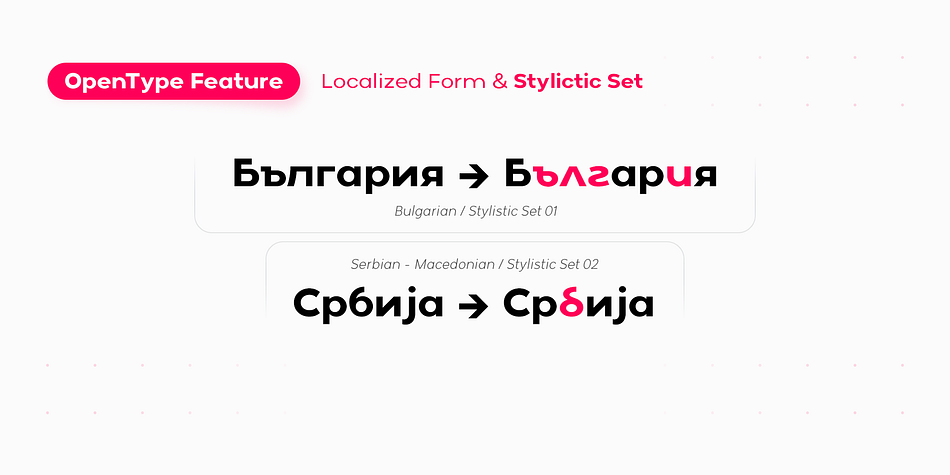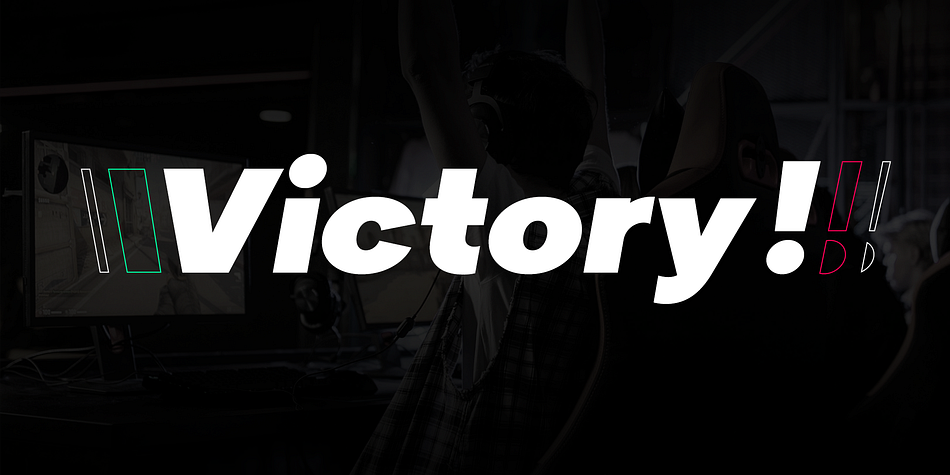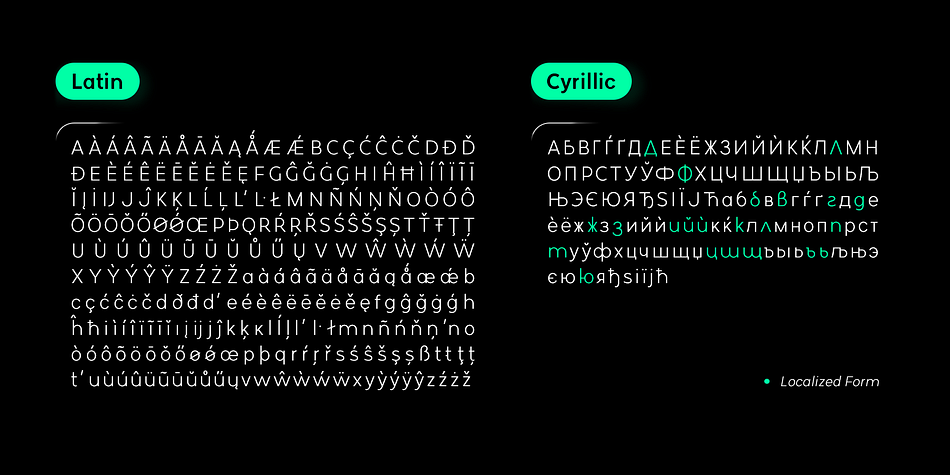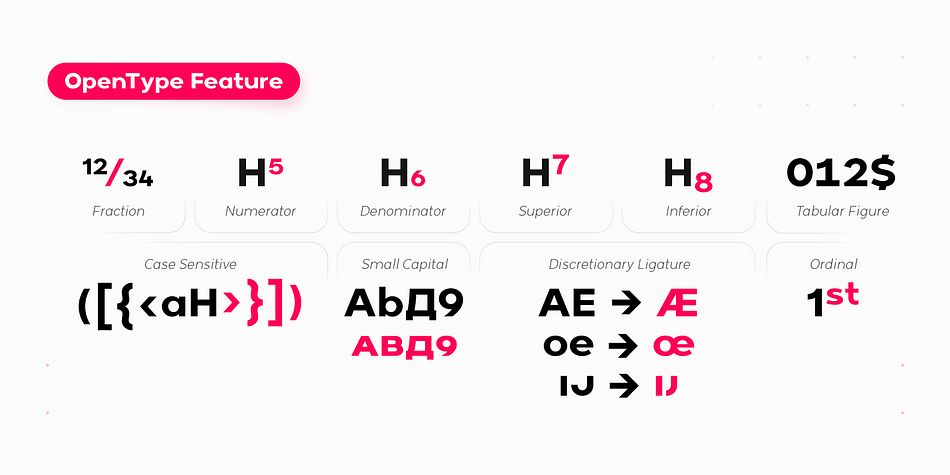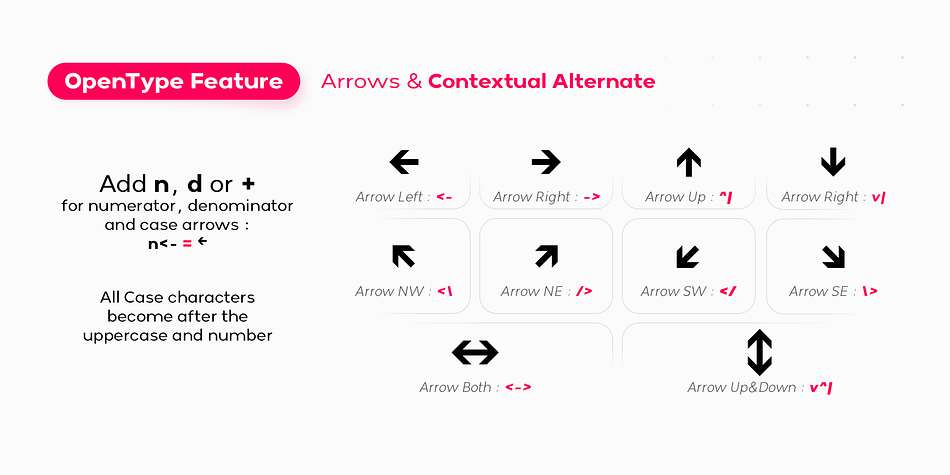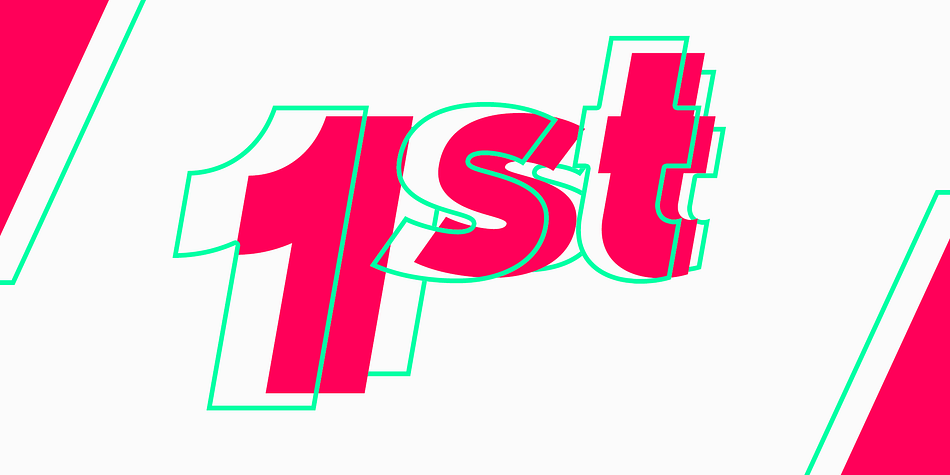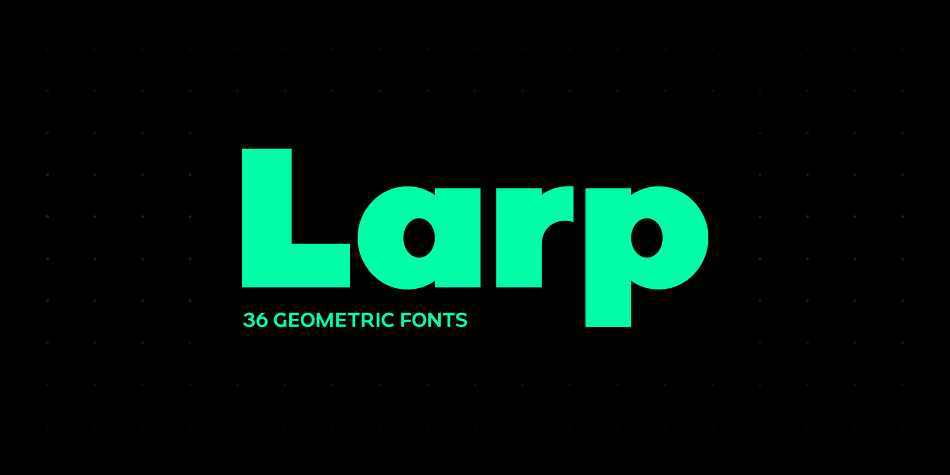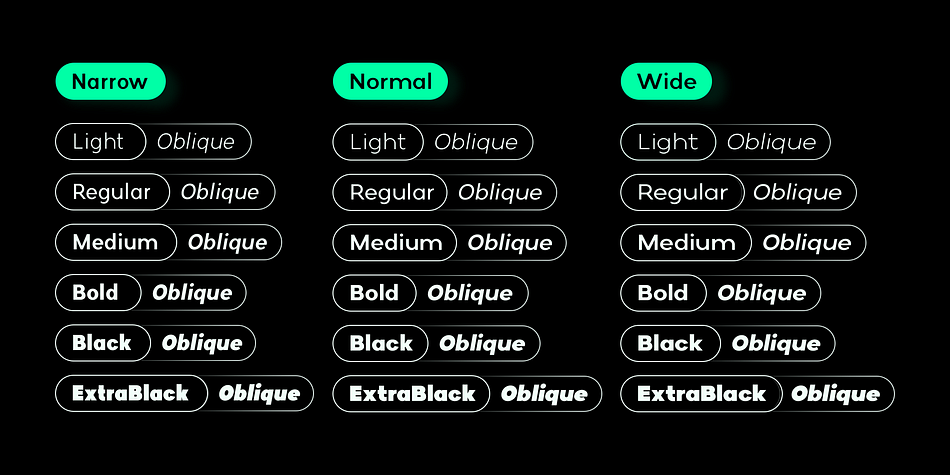
Larp
Larp is a sans serif font family. This typeface has thirty-six styles and was published by Par Défaut.
Larp is Geometrical font family
Available in 6 Weights (Light, Regular, Medium, Bold, Black, ExtraBlack) and 3 Width (Narrow, Normal, Wide), all doubled in Oblique
Compose more than 900 characters, Larp support many Languages in Latin & Cyrillic alphabet (Localized form for Bulgarian and Serbian).
The 14 OpenType Features will allow you to format your text (Fraction, Numerator, Denominator, Superior, Inferior, Tabular figure, Case sensitive, Small Capital, Discretionary Ligature, Ordinal, Contextual Alternate, Localized Form, Stylistic Set, Alternate)
• Numerator and Denominator includes numerals & currency
• Tabular Figure includes : numerals & currency
• Small Capital features includes the Latin & Cyrillic alphabet with the accents & Numbers.
• Ordinal feature includes the Latin & Cyrillic alphabet.
• Stylistic set 01 for Bulgarian Localized Form characters.
• Stylistic set 02 for Serbian & Macedonian Localized Form characters.
• Discretionary Ligature includes “AE”, “AÉ”, “IJ”,“OE”, available in lowercase, small capital and ordinal.
• Contextual Alternate includes ligatures for arrows : “
<-" "->”  “^|”  “v|”  “<->”  “v^|”  “<\" "/>”  “
“.
Add n, d or +, for numerator, denominator or case arrows.
All Case sensitive characters become after the uppercase and number.